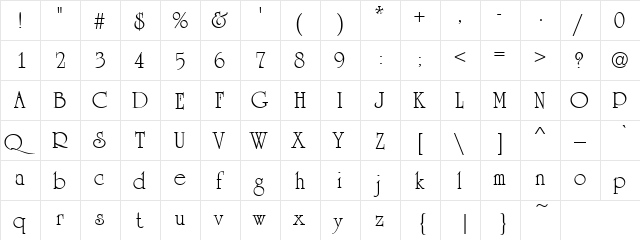
Grandfather Regular
Design Context for Grandfather Typeface
Grandfather offers clean, dependable letterforms without strong stylistic allegiance, making it a practical choice for designers who need flexibility.